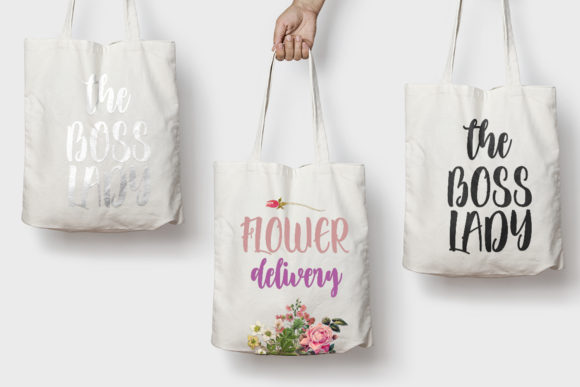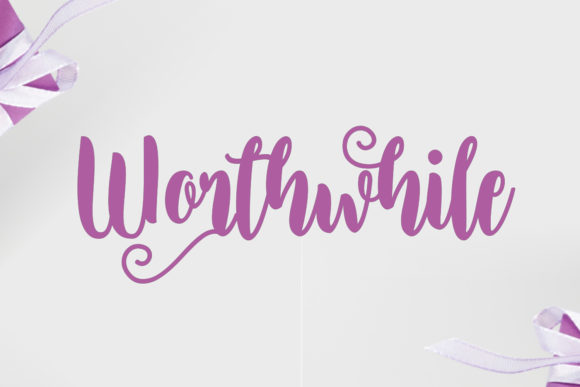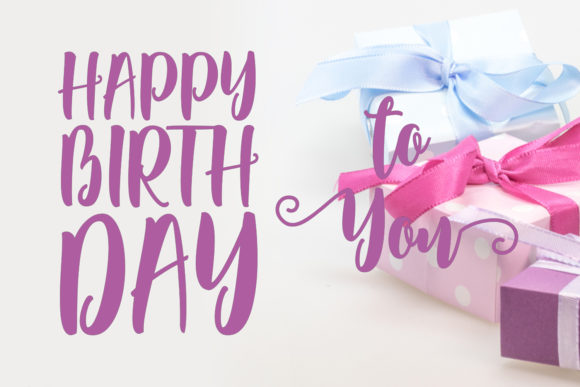
Ayosha Font
About Ayosha Font
Alyosha is a friendly and chunky lettered script font. This original look will appeal to a wide range of crafty ideas, perfect for any craft in need of an authentic touch. This font is PUA encoded which means you can access the available glyphs and swashes with ease!